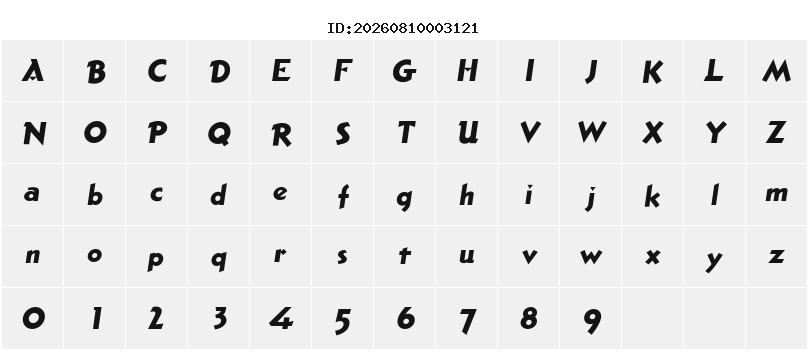
Pacific Preview
• Font Name: Pacific
• Full Font Name: PacificClipperBdObSG
• PostScript Name: PacificClipperBdObSG
About Pacific.ttf
Pacific.ttf is a modern, elegant sans-serif font designed for ultimate readability and visual harmony. Perfect for branding, headlines, web design, and print materials.